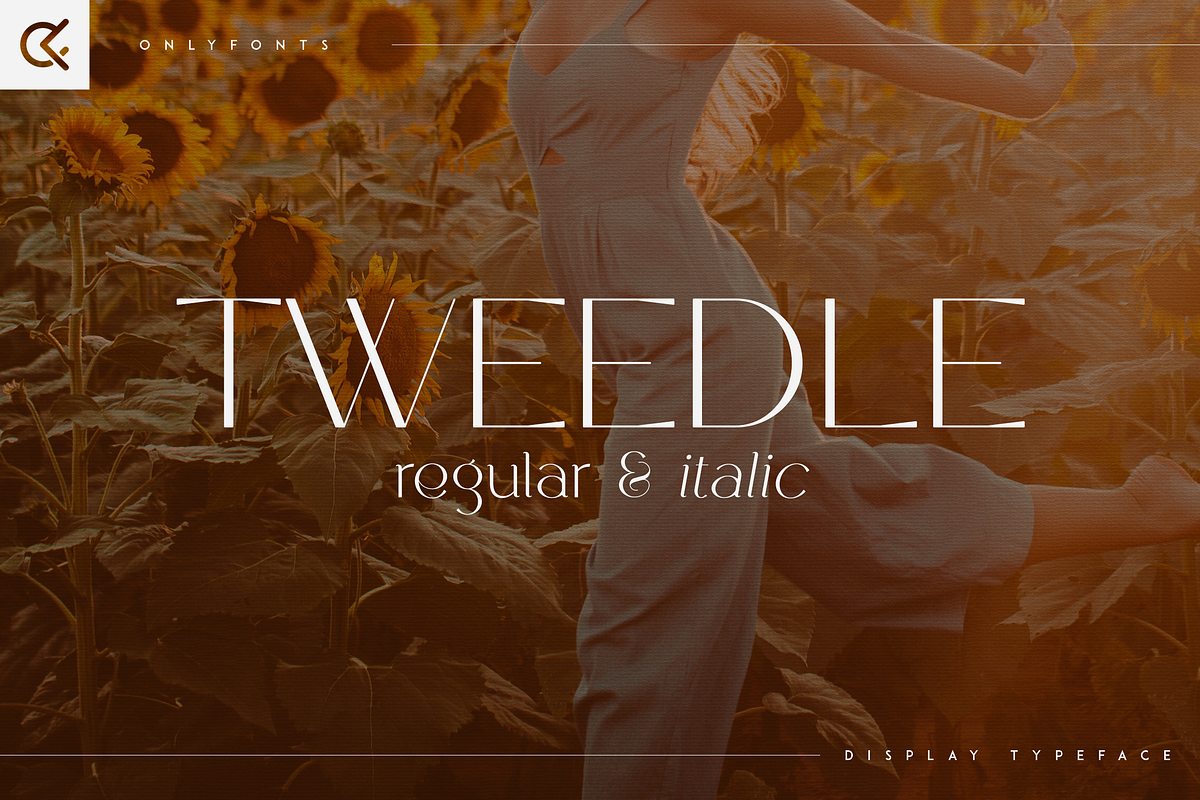
Tweedle Display Typeface Free Download is a quirky and bold typeface designed to bring character and charm to your creative projects. With its whimsical letterforms, playful proportions, and eye-catching style, Tweedle is perfect for children’s books, fun branding, posters, merchandise, and any design that needs a dose of personality and flair.
Whether you're aiming for something lighthearted, vintage-inspired, or entirely unique, Tweedle Display Typeface Free Download delivers standout appeal while remaining clean and readable. It works well for both headlines and decorative elements, helping your designs capture attention with ease.